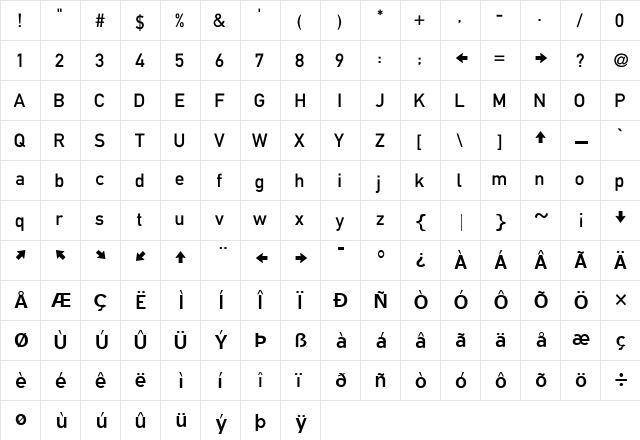
DIN Mittelschrift Mittelschrift
Design Context for DIN Mittelschrift Typeface
DIN Mittelschrift offers clean, dependable letterforms without strong stylistic allegiance, making it a practical choice for designers who need flexibility.